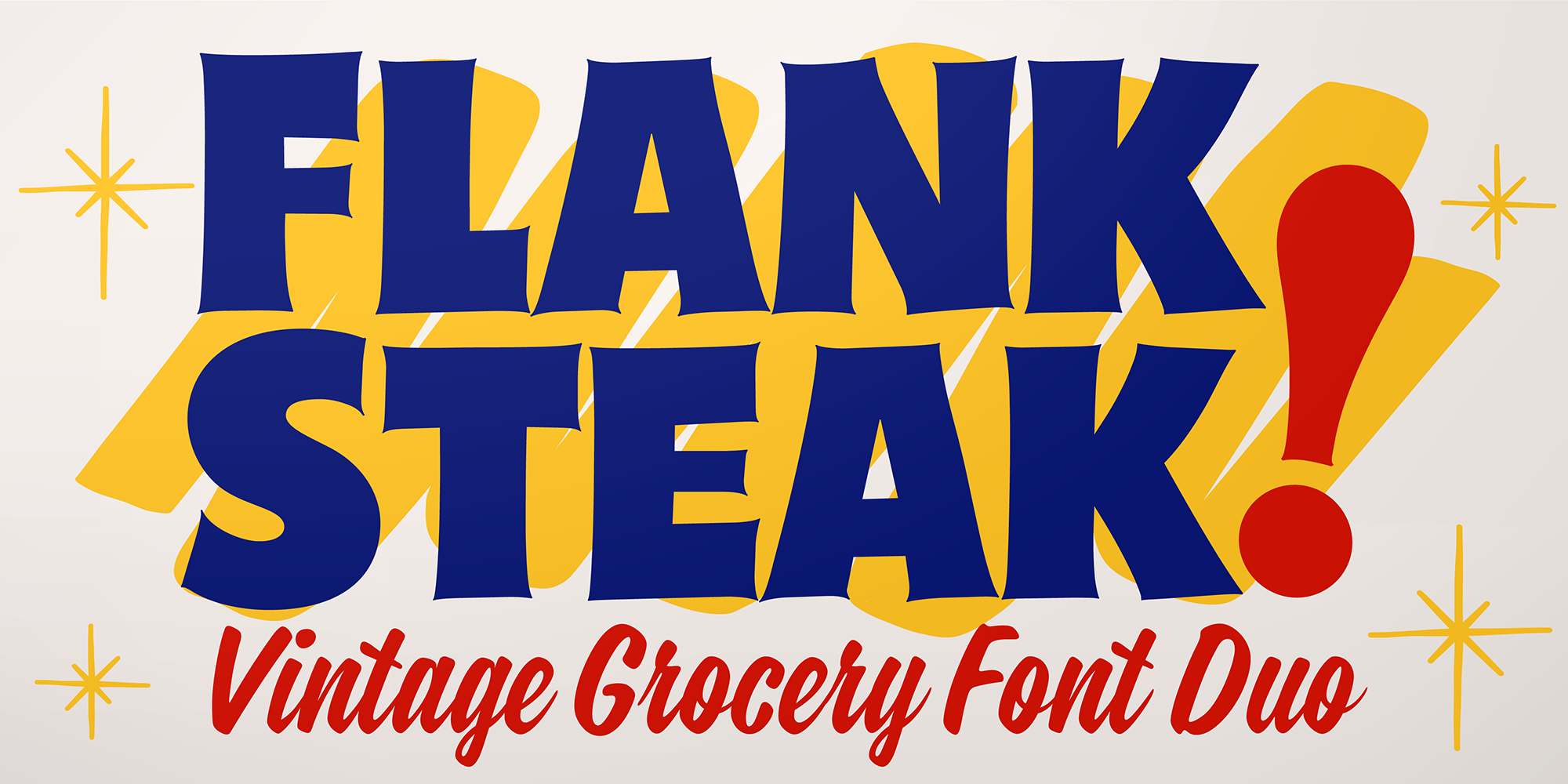
Flank Steak Font is ideal for bold design projects including barbecue restaurant branding, food truck logos, steakhouse menus, craft brewery materials, rustic packaging designs, outdoor adventure brands, masculine grooming products, sports bar signage, hunting and fishing logos, and rugged lifestyle brands that require strong, masculine typography with authentic character.
What makes Flank Steak Font so exciting is its robust, masculine design that perfectly captures the essence of hearty, authentic experiences while maintaining excellent readability and versatile application potential. This powerful typeface features strong, chunky letterforms with deliberate imperfections and organic character variations that evoke handcrafted authenticity, making it perfect for brands seeking to communicate strength, tradition, and genuine quality.
Flank Steak Font typically comes in comprehensive font families including regular, bold, condensed, and outline versions, along with textured alternates, decorative elements, and special character sets, providing designers with extensive flexibility to create impactful layouts and establish strong brand presence across various media applications.